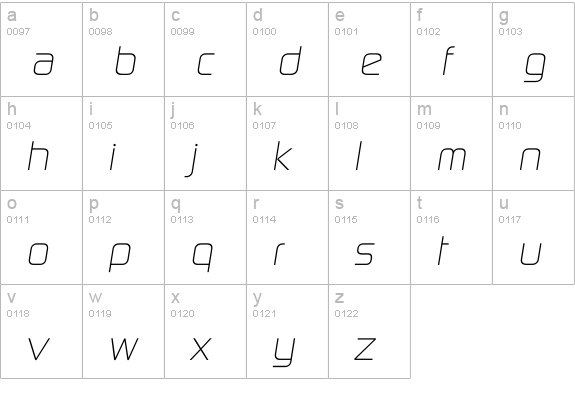
Idigital Light Font Details
Idigital Light is a refined, elegant variant in the Idigital typeface family \xE2\x80\x94 well suited to elegant body text, refined sub-headings, and luxury branding.
Introducing Idigital Light, a stunningly sleek and modern font that effortlessly combines elegance and innovation. With its clean lines and precise letterforms, this font is perfect for any project that requires a touch of sophistication and contemporary flair. Idigital Light is designed with readability in mind, making it ideal for both digital and print media. Whether you're designing a website, creating an eye-catching logo, or crafting a visually appealing poster, this font will grab attention and leave a lasting impression. But that's not all - Idigital Light is also free! That's right, this incredible font is freely available to download at FontsMarket.com. Say goodbye to pricey font purchases and hello to high-quality typography without breaking the bank. With its generous x-height and open counters, Idigital Light ensures legibility even at smaller sizes. Its balanced proportions and consistent letter spacing allow for seamless integration into any design project, while still maintaining its unique personality. Whether you're a professional graphic designer or a passionate hobbyist, Idigital Light is a must-have addition to your font collection. Its versatility and timeless appeal make it suitable for a wide range of applications, from corporate branding to editorial design, from web interfaces to product packaging. So why wait? Visit FontsMarket.com today and experience the freedom and creativity that Idigital Light brings to your design projects. Download it for free and elevate your typography game to a whole new level. Embrace the elegance and modernity of Idigital Light font and watch your designs shine.